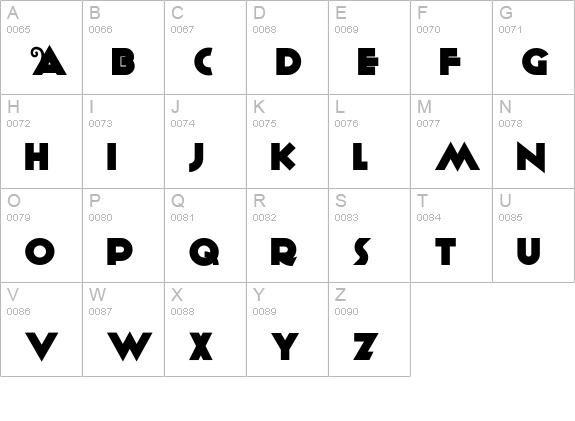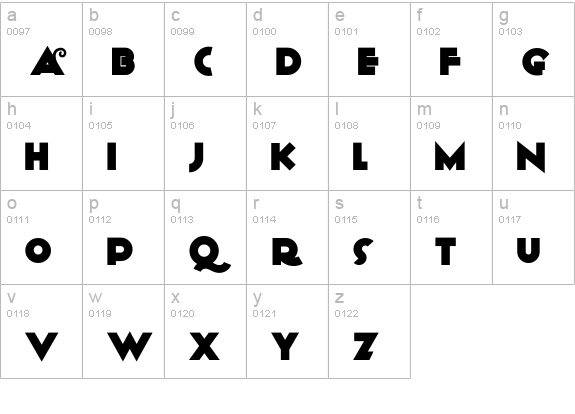
Anagram Font Details
Introducing Anagram font, a captivating and versatile typeface that effortlessly blends modern elegance with a touch of whimsy. This unique font features intricate letterforms that beautifully intertwine to create an eye-catching design. Perfect for adding a creative flair to your projects, Anagram font is sure to make a statement and leave a lasting impression. What's even better is that Anagram font is available for free download at FontsMarket.com! This means you can easily access this stunning font and use it in your designs without any cost. Whether you're working on branding, invitations, or any other creative project, Anagram font is a must-have addition to your font collection. Embrace the beauty and creativity of Anagram font today and elevate your designs to new heights.